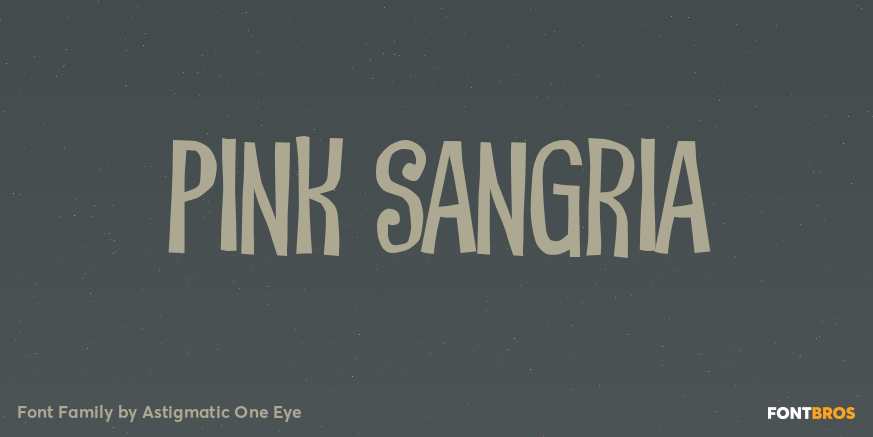
HomeFont BrosGroovy (1966-1978)Pink Sangria Groovy (1966-1978)Sans SerifWacky Pink Sangria FacebookXPinterestWhatsApp 1 of 1 About Pink Sangria A hand drawn offbeat unicase font.  DOWNLOAD ON FONT BROSThis font is sold and delivered by Font Bros. Font Canyon may earn a commission if you buy through this link. People also explored Kleio Font Stylleda Font Great Things Font Helly Copters Font Depto Font James Ariyale Font Christmas Snow Font Green Houseplant Font Marmia Script 365 0 TagsPink Sangria Font Previous articleGaumontNext articleRadical Fortune LEAVE A REPLY Cancel reply Comment: Please enter your comment! Name:* Please enter your name here Email:* You have entered an incorrect email address! Please enter your email address here Website: Save my name, email, and website in this browser for the next time I comment. Personal Use Free Ryujin Attack Personal Use Free Read more about this font First Be Lucky Personal Use Free Read more about this font The Sweet Neo Personal Use Free Read more about this font Clarisa Script Personal Use Free Read more about this font BLOG How to Install and Use Fonts on Windows, macOS, and Web Projects How to Install and Use Fonts on Windows, macOS, and Web Projects Fonts are a crucial part of design and branding. Whether you’re designing a... To increase your work productivity, choose the most readable fonts. Fonts That Capture the Spirit of New York City Exploring Font Trends